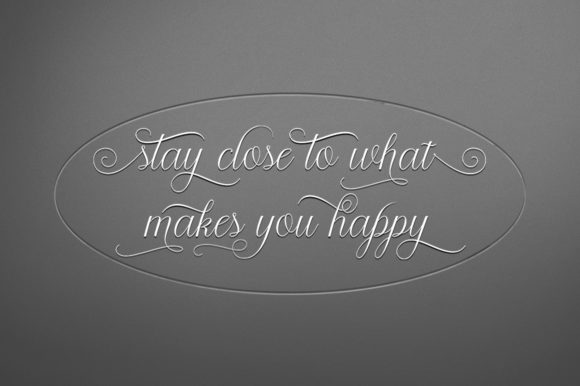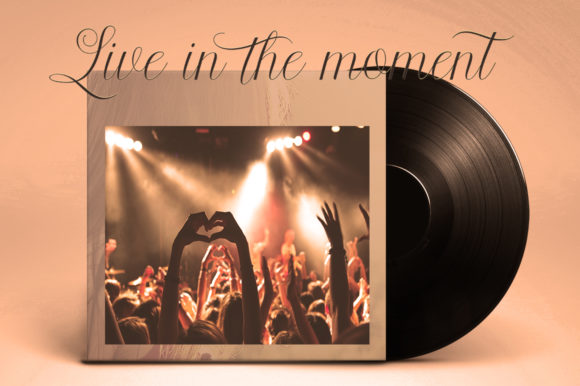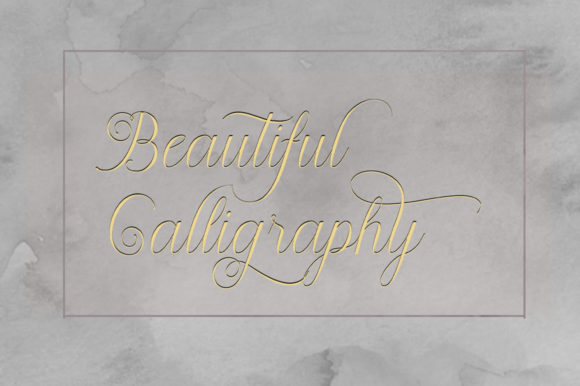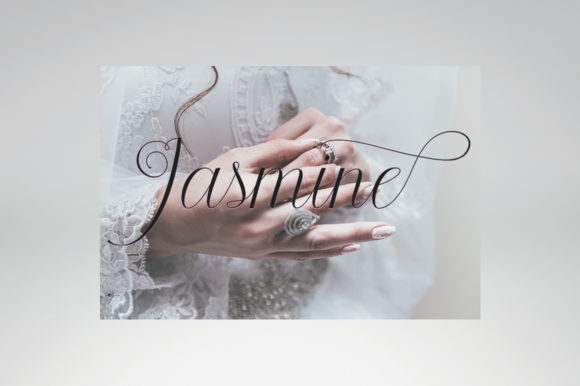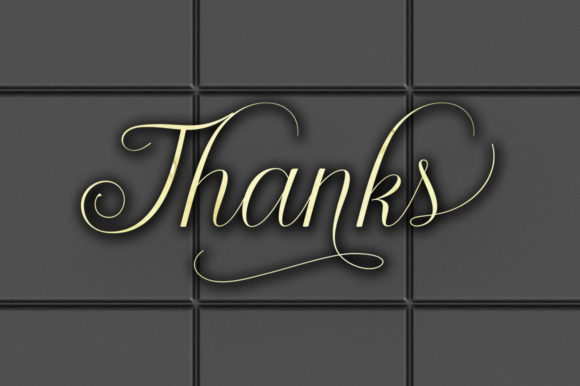
Fabulous Script Font: Elevate Your Designs with a Modern Handwritten Touch
In the world of typography, script fonts have always been a favorite among designers and crafters. They add a touch of elegance, sophistication, and personality to any design. One such font that has gained popularity in recent times is the Fabulous Script Font. This modern handwritten script font is easy to use, has great readability, and is perfect for branding designs. In this article, we’ll dive into the features and benefits of the Fabulous Script Font and explore how you can use it to elevate your designs.
What is Fabulous Script Font?
The Fabulous Script Font is a modern handwritten script font that is designed to add a touch of elegance and sophistication to your designs. It’s a versatile font that can be used for a variety of design projects, from branding and advertising to packaging and digital media. The font features beautiful, flowing lines and a unique character set that sets it apart from other script fonts.
Key Features of Fabulous Script Font
- Great Readability: The font has great readability, making it perfect for body text and headlines. The characters are clear and distinct, ensuring that your message is conveyed clearly.
- Modern Handwritten Style: The Fabulous Script Font has a modern handwritten style that adds a touch of personality to your designs. The font features beautiful, flowing lines and a unique character set.
- Perfect for Branding Designs: The font is perfect for branding designs, including logos, business cards, and letterheads. It’s also great for packaging, advertising, and digital media.
Benefits of Using Fabulous Script Font
There are many benefits to using the Fabulous Script Font in your designs. Here are a few:
- Adds Personality: The Fabulous Script Font adds a touch of personality to your designs, setting them apart from others.
- Enhances Brand Identity: The font can help enhance your brand identity by adding a unique and consistent visual element to your designs.
- Improves Readability: The font’s great readability ensures that your message is conveyed clearly, making it perfect for body text and headlines.
- Versatile: The Fabulous Script Font is versatile and can be used for a variety of design projects, from branding and advertising to packaging and digital media.
Here are a few tips and tricks to help you get the most out of the Fabulous Script Font:
- Use it for Headlines: Use the Fabulous Script Font for headlines and titles to add a touch of elegance and sophistication.
- Pair it with Other Fonts: Pair the Fabulous Script Font with other fonts to create a unique and visually appealing design.
- Experiment with Colors: Experiment with different colors to add depth and interest to your design.
| Font Name | Fabulous Script Font |
| Author | Stripes Studio |
The Fabulous Script Font is a modern handwritten script font that is perfect for designers and crafters looking to add a touch of elegance and sophistication to their designs. With its great readability, easy-to-use design, and versatile style, it’s perfect for branding designs, packaging, advertising, and digital media. By following the tips and tricks outlined in this article, you can get the most out of the Fabulous Script Font and create stunning designs that set you apart from the competition.